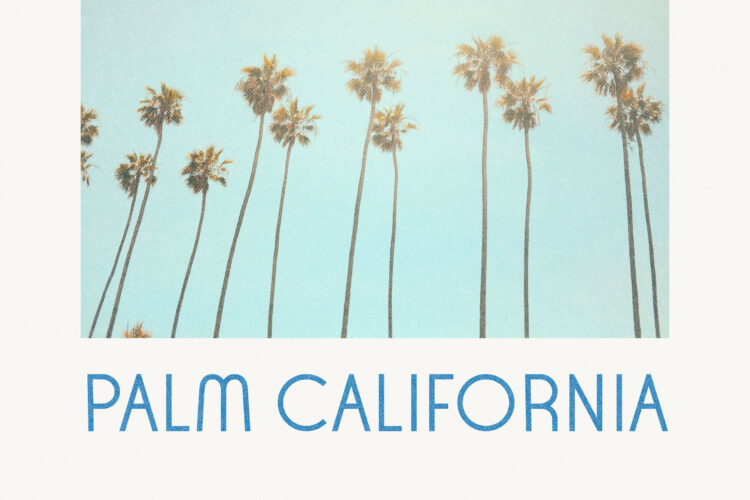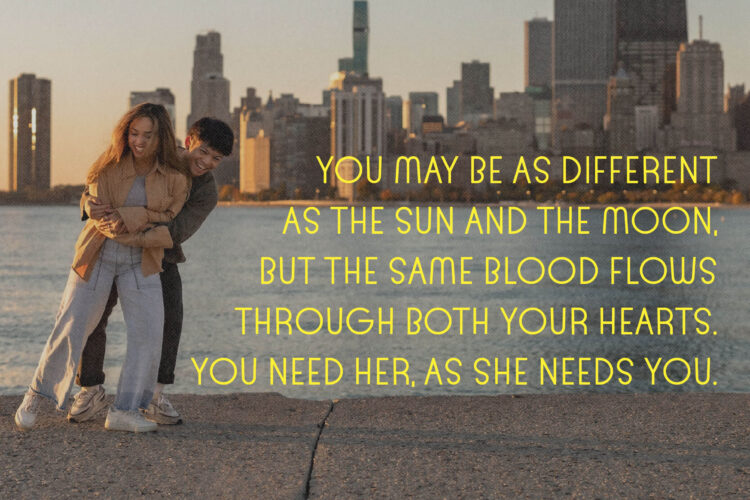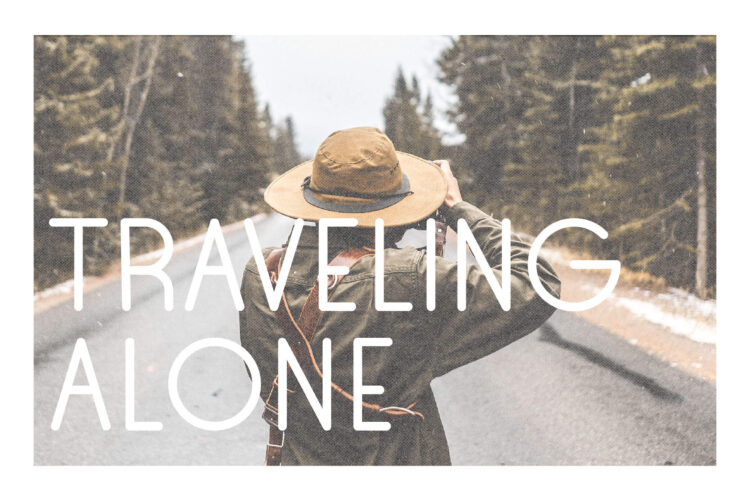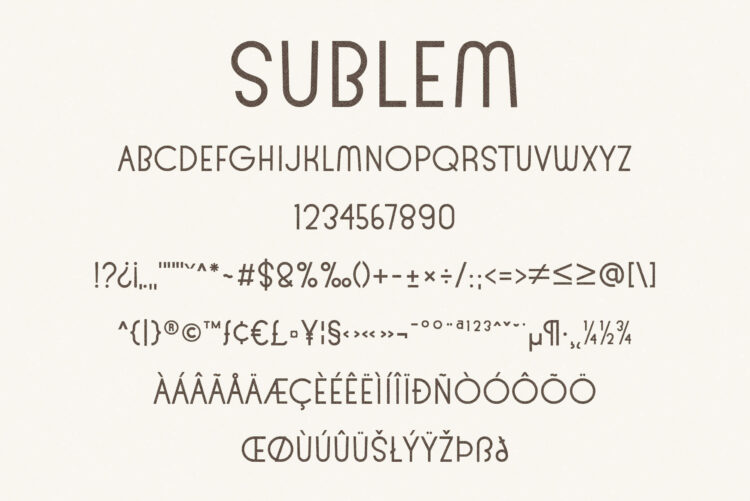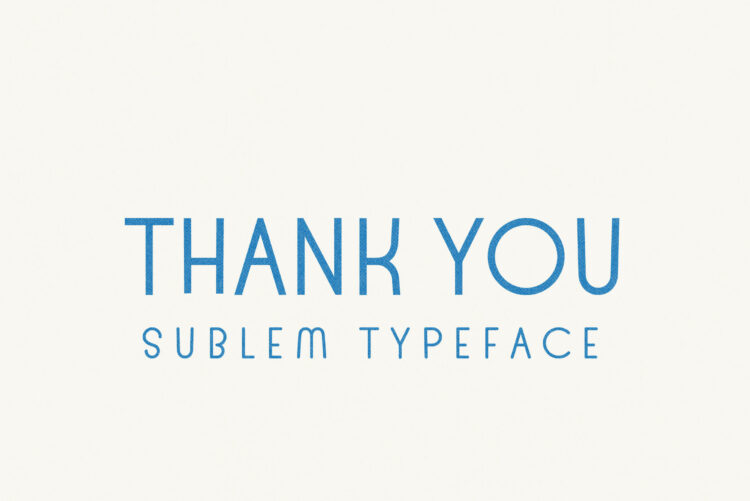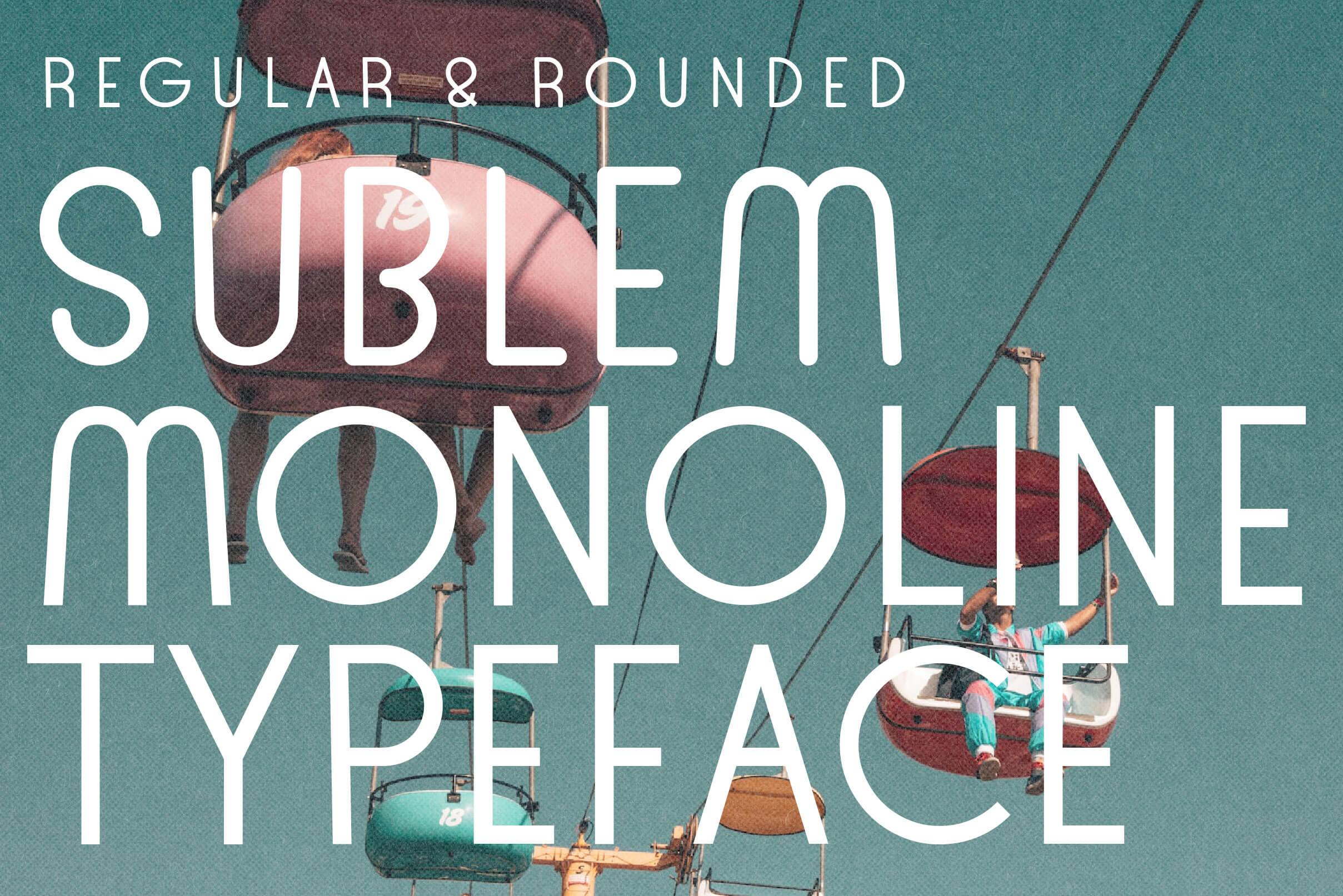
Sublem - Regular
Sublem - Rounded
Sublem is a minimalist and neat sans serif font. It can easily be matched to an incredibly large set of projects, so add it to your creative ideas and notice how it makes them stand out!
Sublem – Monoline Font